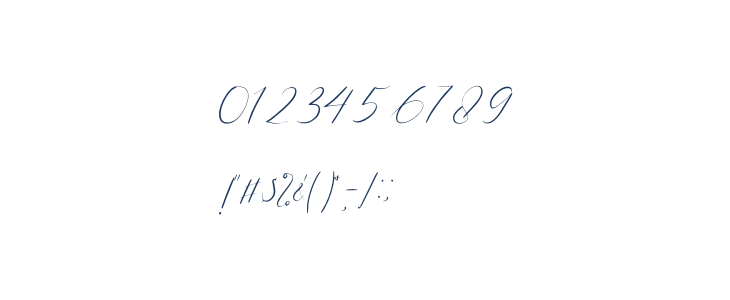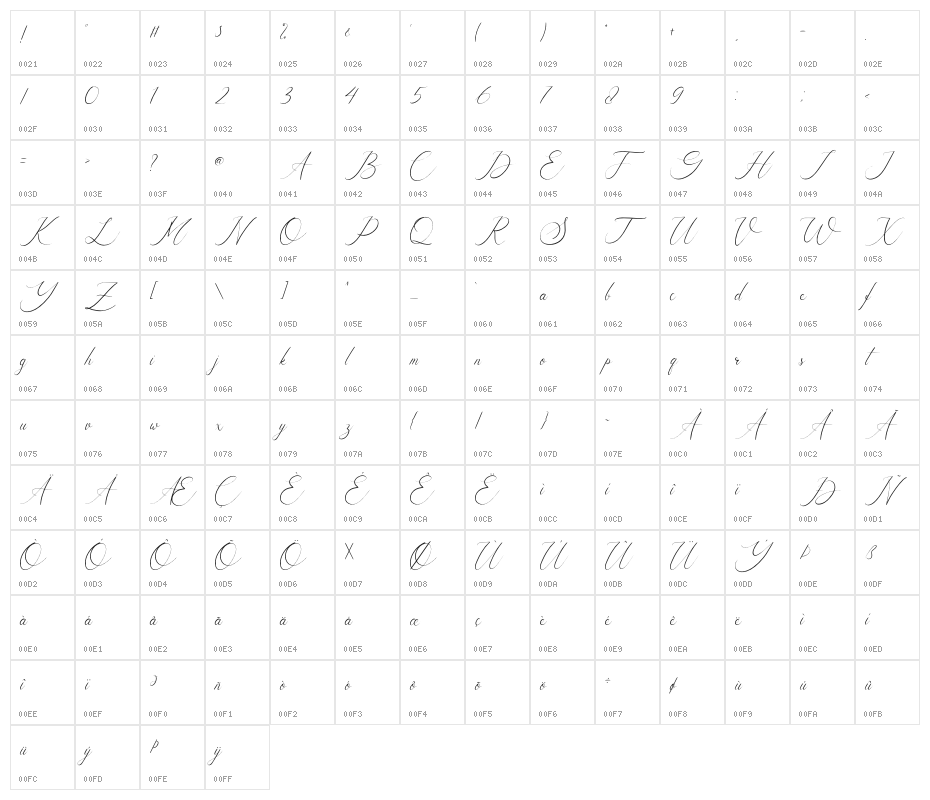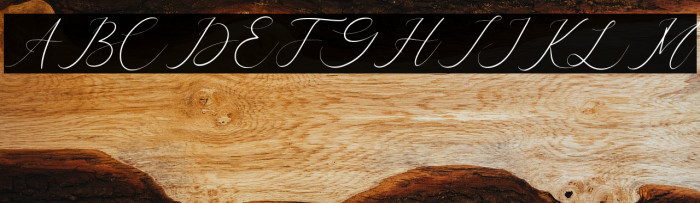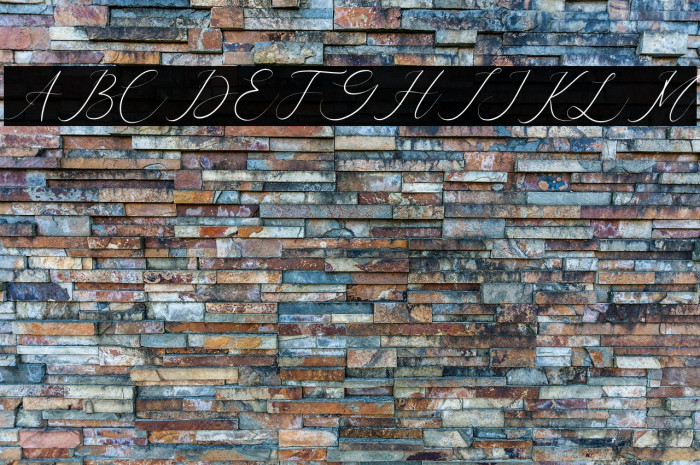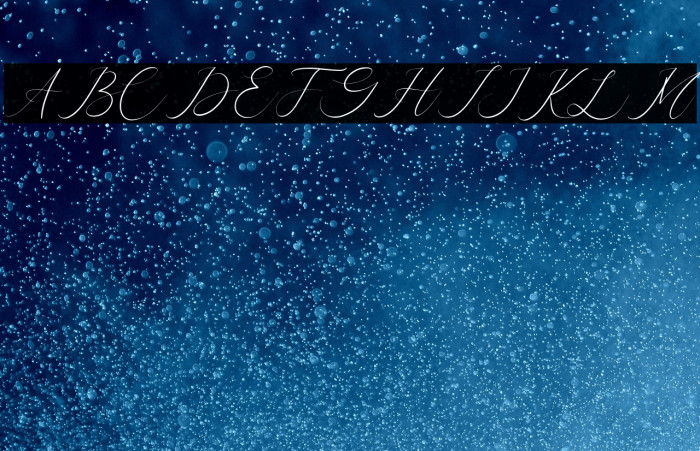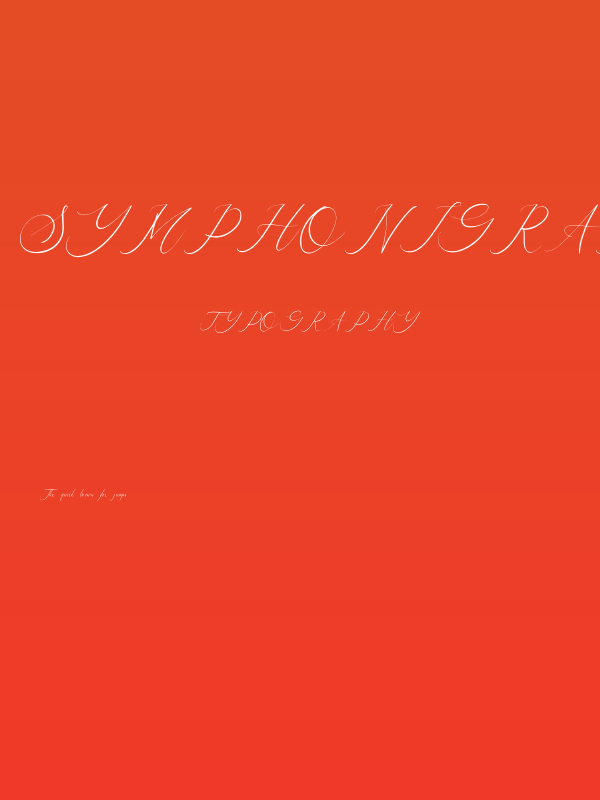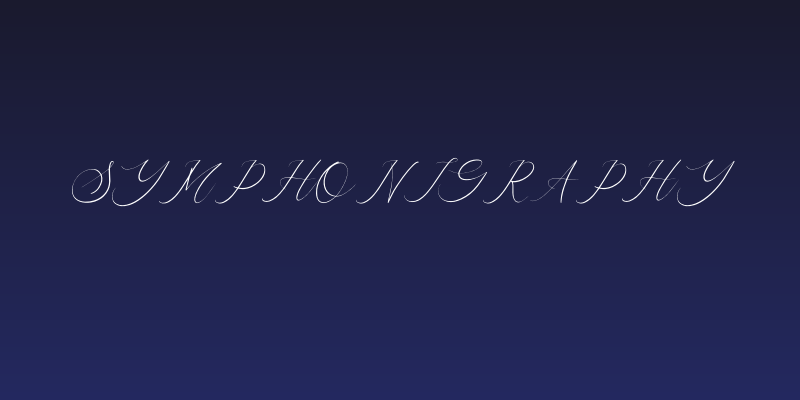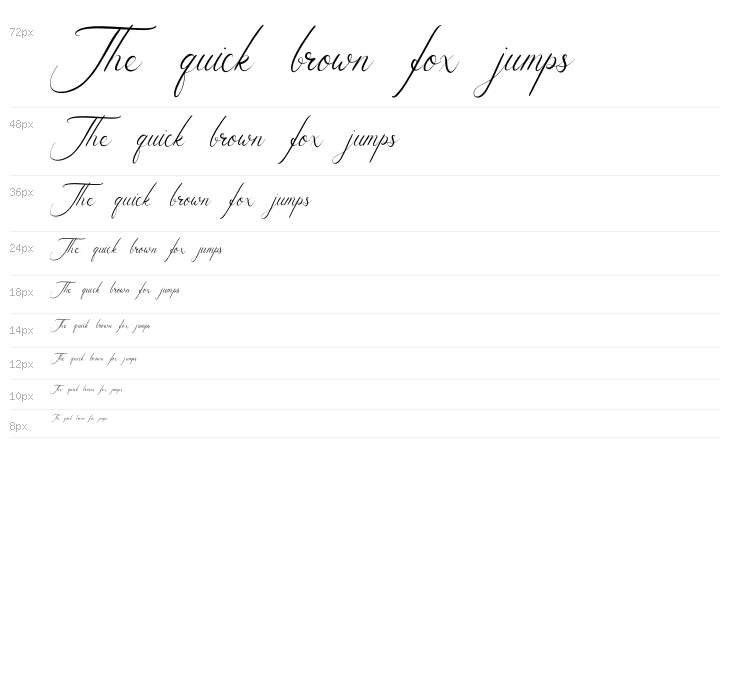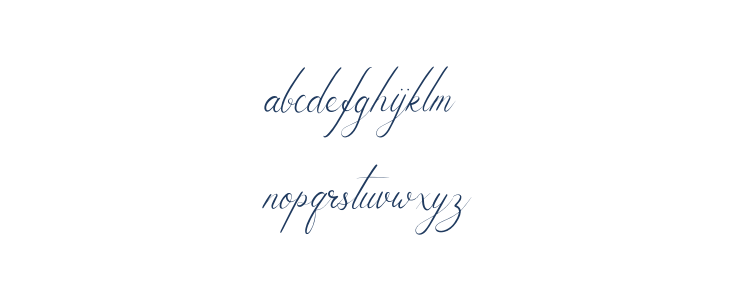
Symphonigraphy Font
Symphonigraphy Description
This elegant script font features flowing, cursive letterforms that exude a sense of sophistication and grace. The characters are intricately designed with smooth, continuous strokes that mimic the fluidity of handwriting. The uppercase letters are slightly larger and more ornate, while the lowercase letters maintain a consistent style with gentle curves and loops. The numerals are clear and stylish, complementing the overall aesthetic. Special characters are thoughtfully integrated, maintaining the font's cohesive look. This font is perfect for projects that require a touch of elegance and refinement.
| Overall Style | Elegant, Sophisticated |
| Use Case | Logos, Invitations, Decorative Text |
| Proposed Projects | Ideal for wedding invitations, elegant branding, personal stationery, and decorative signage. |